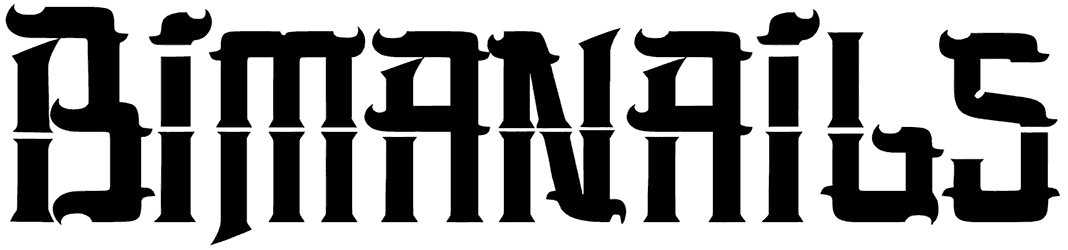
Bimanails Font
Back to you with another great vintage vibe to remind nostalgic moments for any creative users! Bimanails font with an amazing assortment of classic and stencil designs comes across to meet a wide range of graphical needs professionally. Turn to account this amusing retro font to transform a plain style into a traditional one.
Right away, with no hanging around, pull your finger out to use it in many headers of posters, branding, covers, or other projects that do not call for small letters.